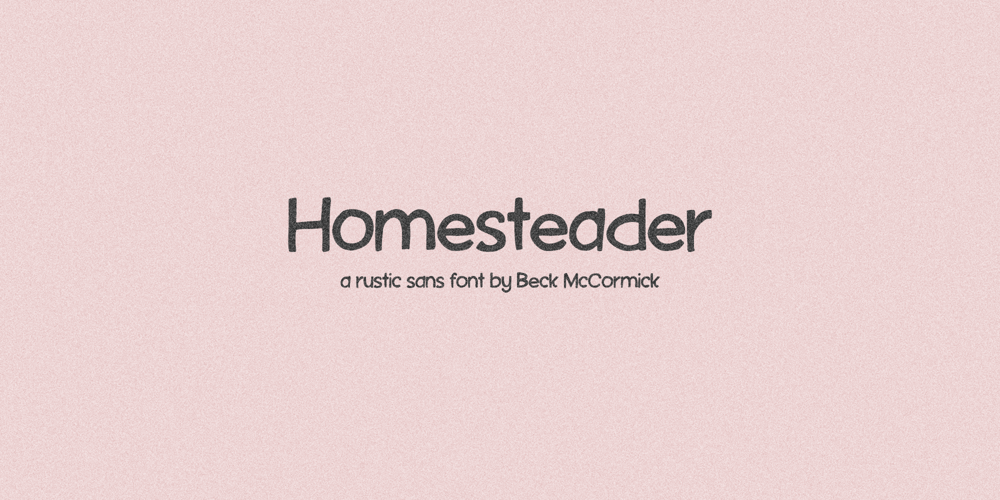
Homesteader Rustic Sans Font Family was designed by Beck McCormick and published by BeckMcCormick. Homesteader Rustic Sans contains 1 styles and family package options. Introducing Homesteader, a rustic, hand drawn sans font. Homesteader has an imperfect wobbly edge, giving each letter a bit of a worn & weathered look. Homesteader is legible, and would be a great fit for farmhouse-style branding projects, crafting, making home decor & signage, and anything requiring a country aesthetic. This font can be used for digital marketing materials, social media, and crafting projects with your Cricut or Silhouette machine.Homesteader Sans includes:- full upper + lowercase characters- numbers + punctuation- PUA-encodingExtensive Language Support:Western European, Central European, South Eastern European, South American, Oceanian, Vietnamese, EsperantoHomesteader can be used with graphic design programs such as Illustrator or Photoshop, word processing programs like Pages or Word, Design Space for Cricut, Silhouette, Procreate, Canva Pro, Glowforge, GoodNotes, & more. This font is an installable for desktop & laptop machines, as well as iPads or iPhones.